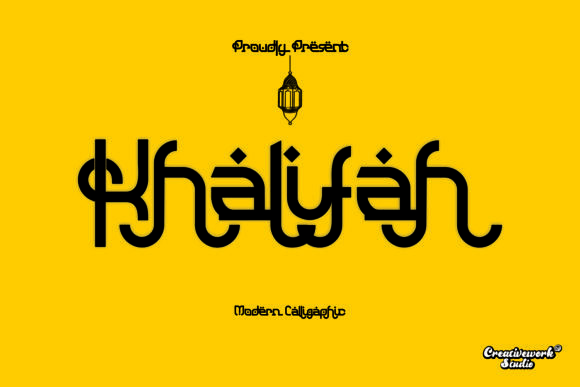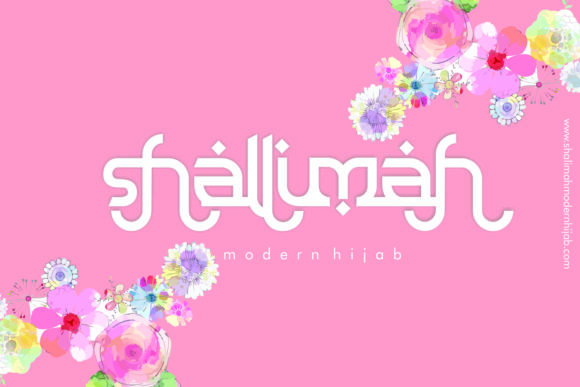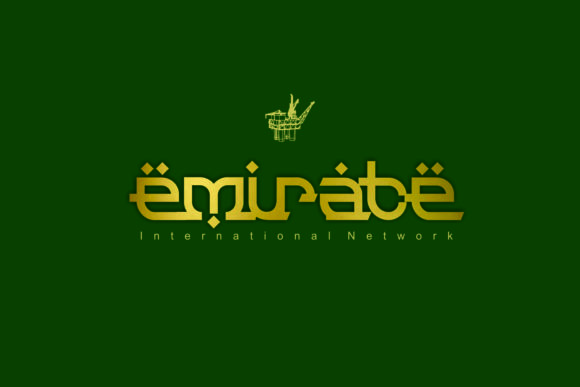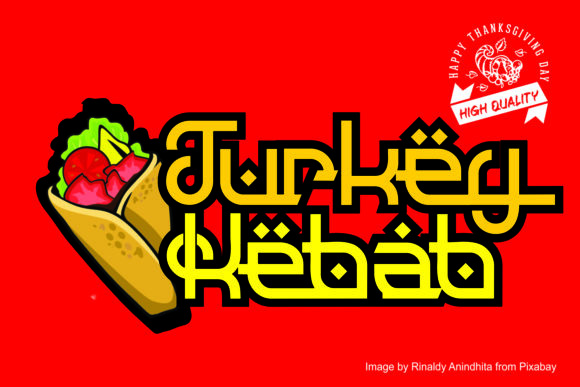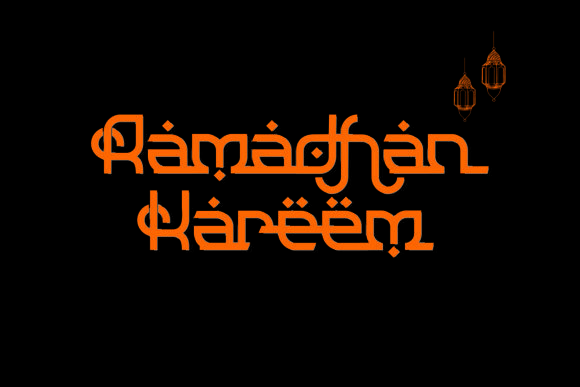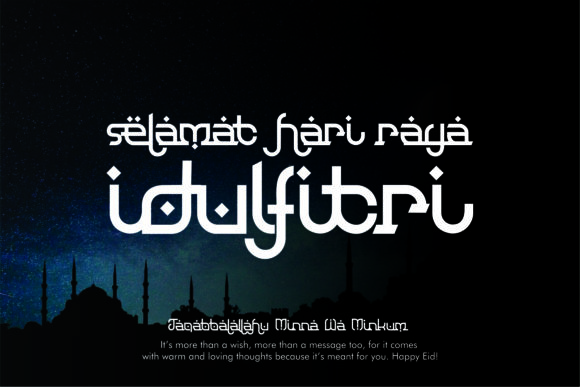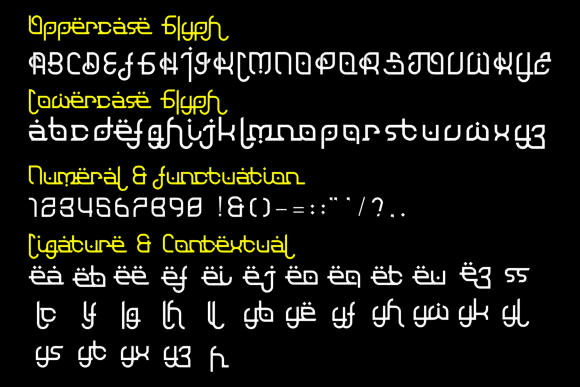
Discover the Magic of Handwritten Design with Khalifah Font
Khalifah Font is a stunning handwritten font with an unmistakable Arabic flair. Its elegance and sophistication make it the perfect choice for creating standout logos, beautiful greeting cards, and much more. Whether you’re a seasoned designer or just starting out, Khalifah Font is a valuable addition to your toolkit. Its versatility and unique character will take your designs to the next level and leave a lasting impression on your audience.
Khalifah Font Key Features
- Font Family: A unique, Arabic-inspired font with a modern twist, suitable for various design applications.
- Language Support: Designed to support the Arabic language, with additional support for Latin and other scripts for multilingual applications.
- Font Weight and Style: Offers a range of font weights (Light, Regular, Bold, Extra Bold) and styles (Italic, Oblique) for creative expression and emphasis.
Khalifah Font Review
As a designer, I was excited to dive into the Khalifah font and see what it had to offer. Here’s my honest review.
- Unique Aesthetic: The Khalifah font has a distinctive and exotic feel to it, making it perfect for projects that need a touch of Middle Eastern flair.
- Linguistic Support: The font supports multiple languages, including Arabic, Persian, and Urdu, making it a great option for projects that require multilingual support.
- Legibility: Despite its unique design, the Khalifah font is surprisingly legible, even at smaller font sizes.
- Compatibility Issues: I encountered some compatibility issues with certain software and operating systems, which may limit its use.
- Lack of Customization Options: The font doesn’t offer a lot of customization options, which may limit its versatility.
- Not Ideal for Body Text: While the Khalifah font is great for headlines and titles, it may not be the best choice for body text due to its unique design.
Overall, the Khalifah font is a unique and interesting addition to any designer’s toolkit. While it has some limitations, it’s perfect for projects that require a specific aesthetic or linguistic support. Just be aware of its compatibility issues and limitations when choosing it for your project.
The Khalifah Font is ideal for use in Middle Eastern and Arabic language design projects. It is also suitable for use in corporate branding, marketing materials, and publications.
To get the most out of the Khalifah Font, use it in conjunction with other Arabic or Middle Eastern fonts to create a cohesive and culturally relevant design.
Q: What is the character set and language support for the Khalifah Font?
The Khalifah Font includes a comprehensive character set that supports the Arabic language, as well as Latin and other scripts. It also includes a range of special characters and symbols for various design applications. For specific language support and character set details, please refer to the font documentation or contact the font developer.